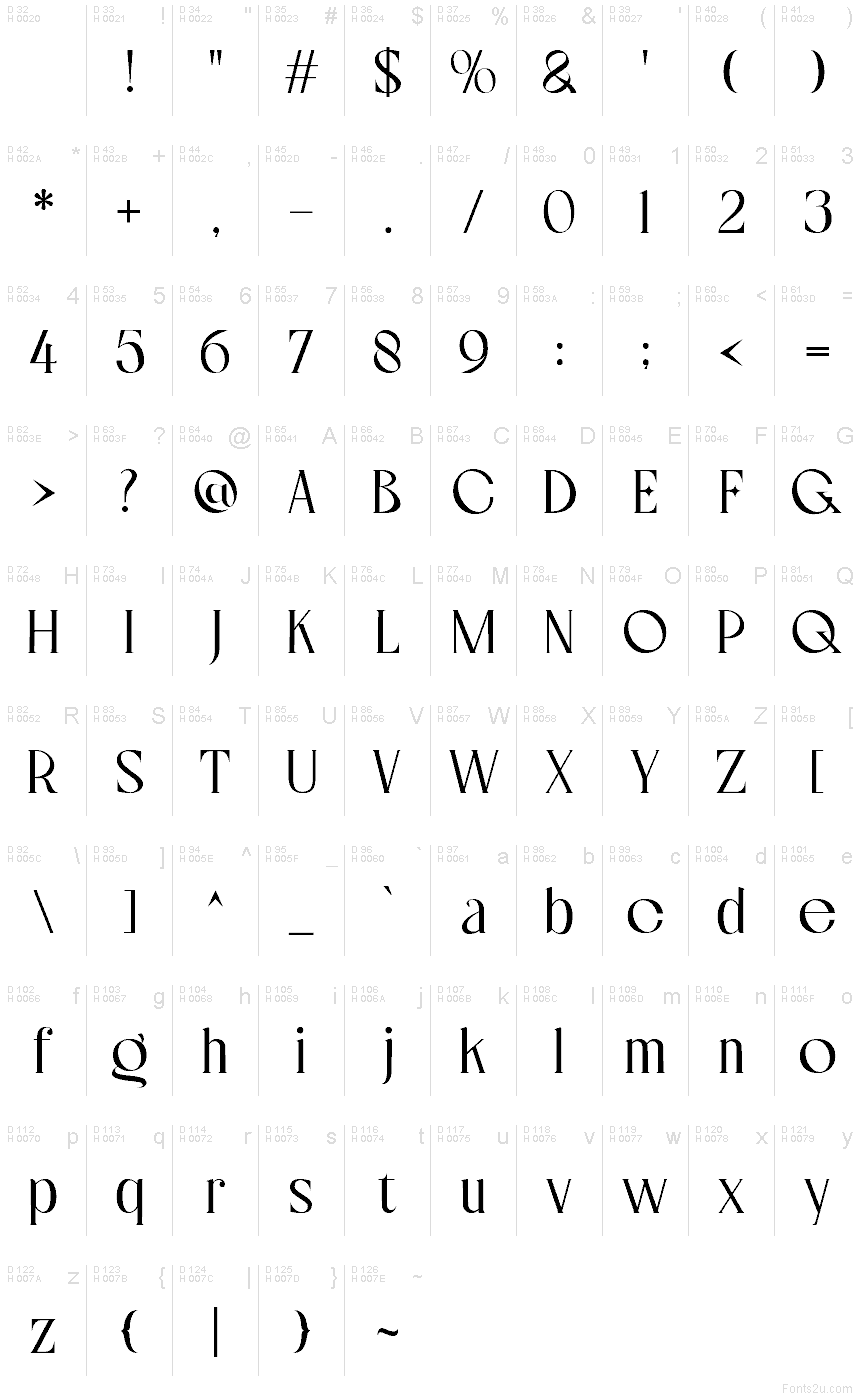
Locrian Regular
Presenting Locrian, a stylish serif font that harmoniously merges classic elegance with a touch of modern-retro allure. Locrian strikes the perfect balance between clean, well-defined lines and robust ligatures emanating sophistication and style. Whether bold or regular, Locrians versatility shines in a variety of design endeavors, from typographic artwork and cinema posters to headline crafting, chic t-shirt imprinting, and unique logotypes. Embrace its everlasting aesthetic to craft visually impactful and unforgettable compositions. With Locrian, its not just a font, its an experience, a story waiting to be narrated through your design.
Locrian